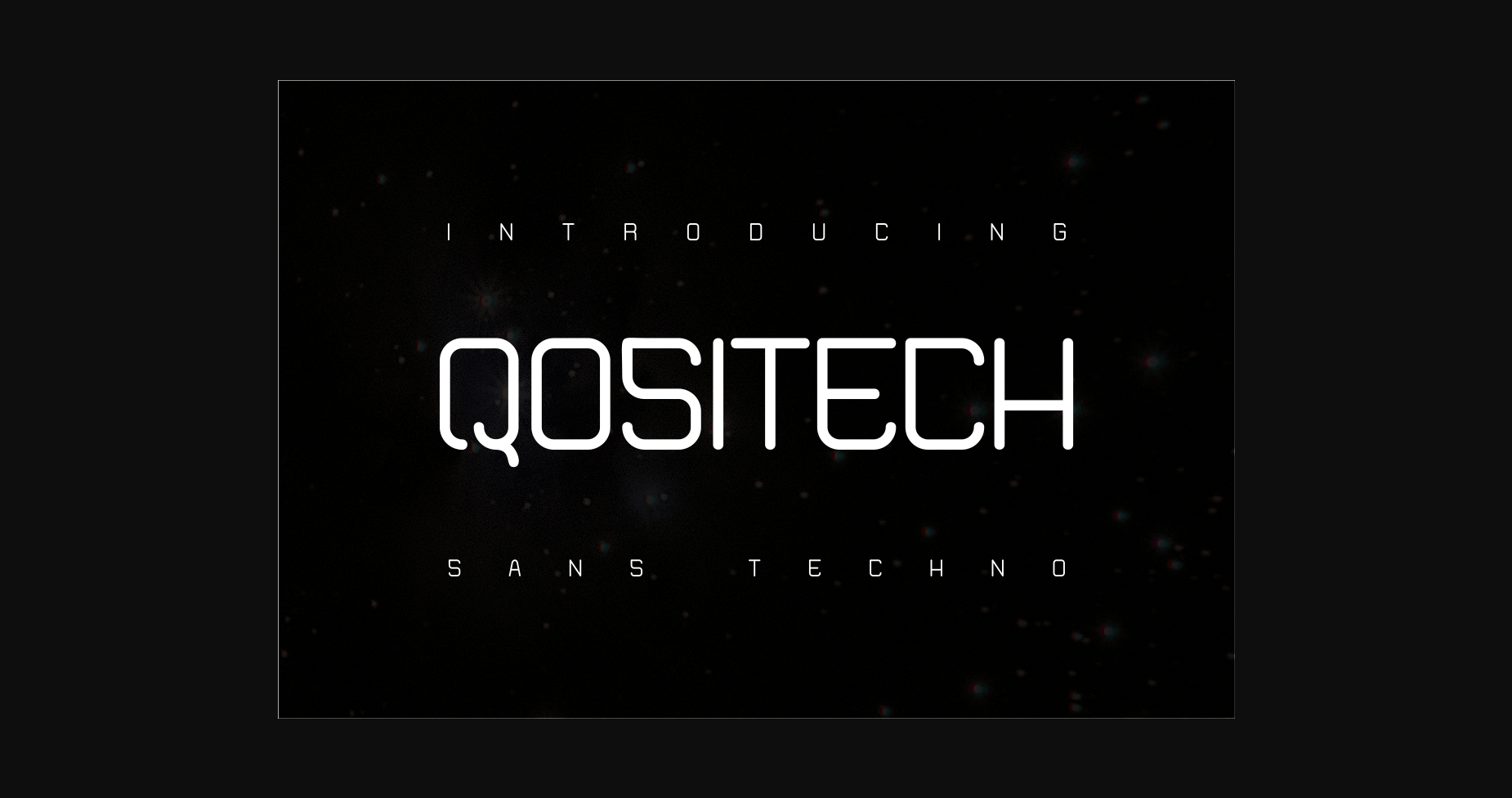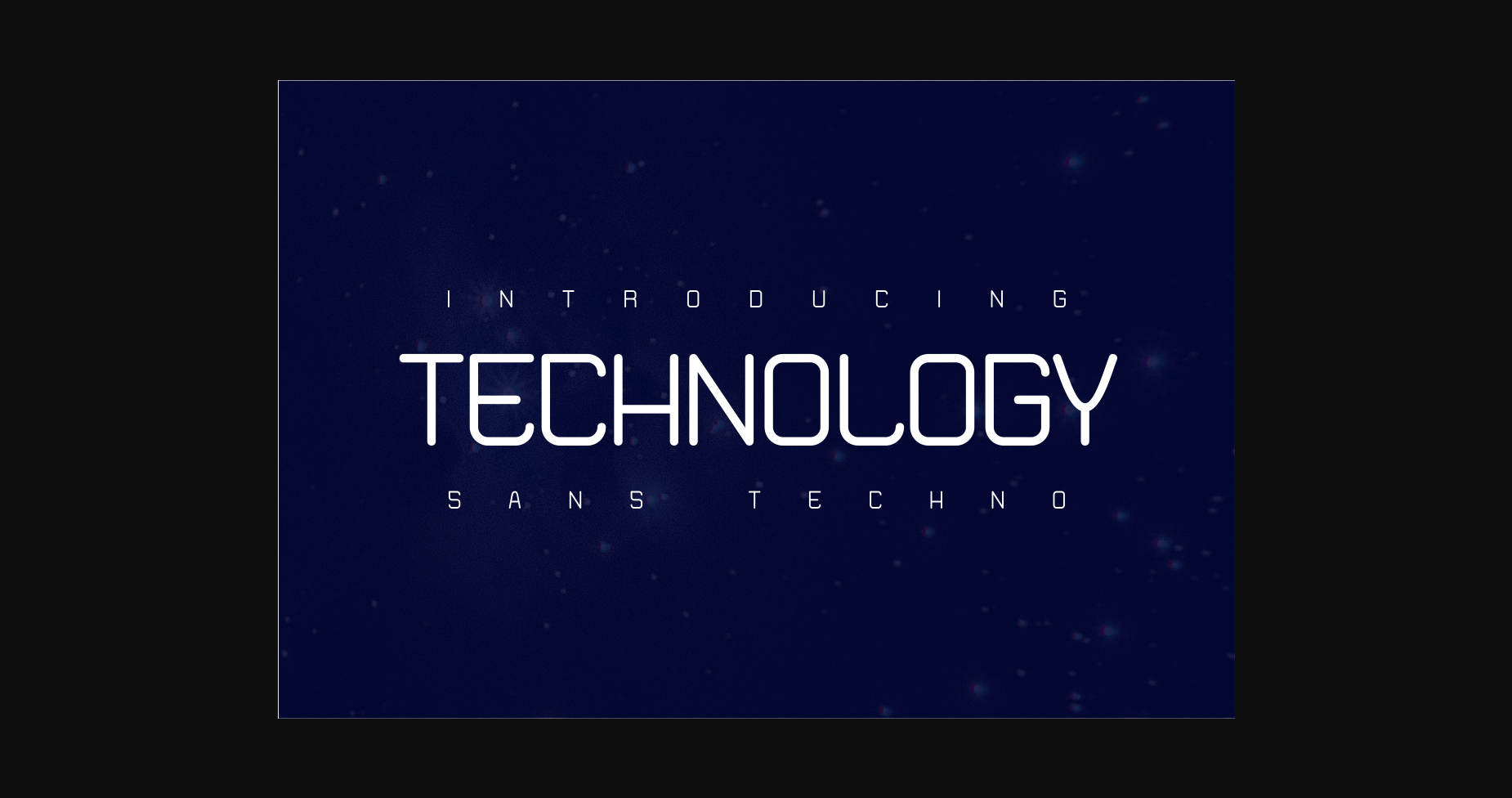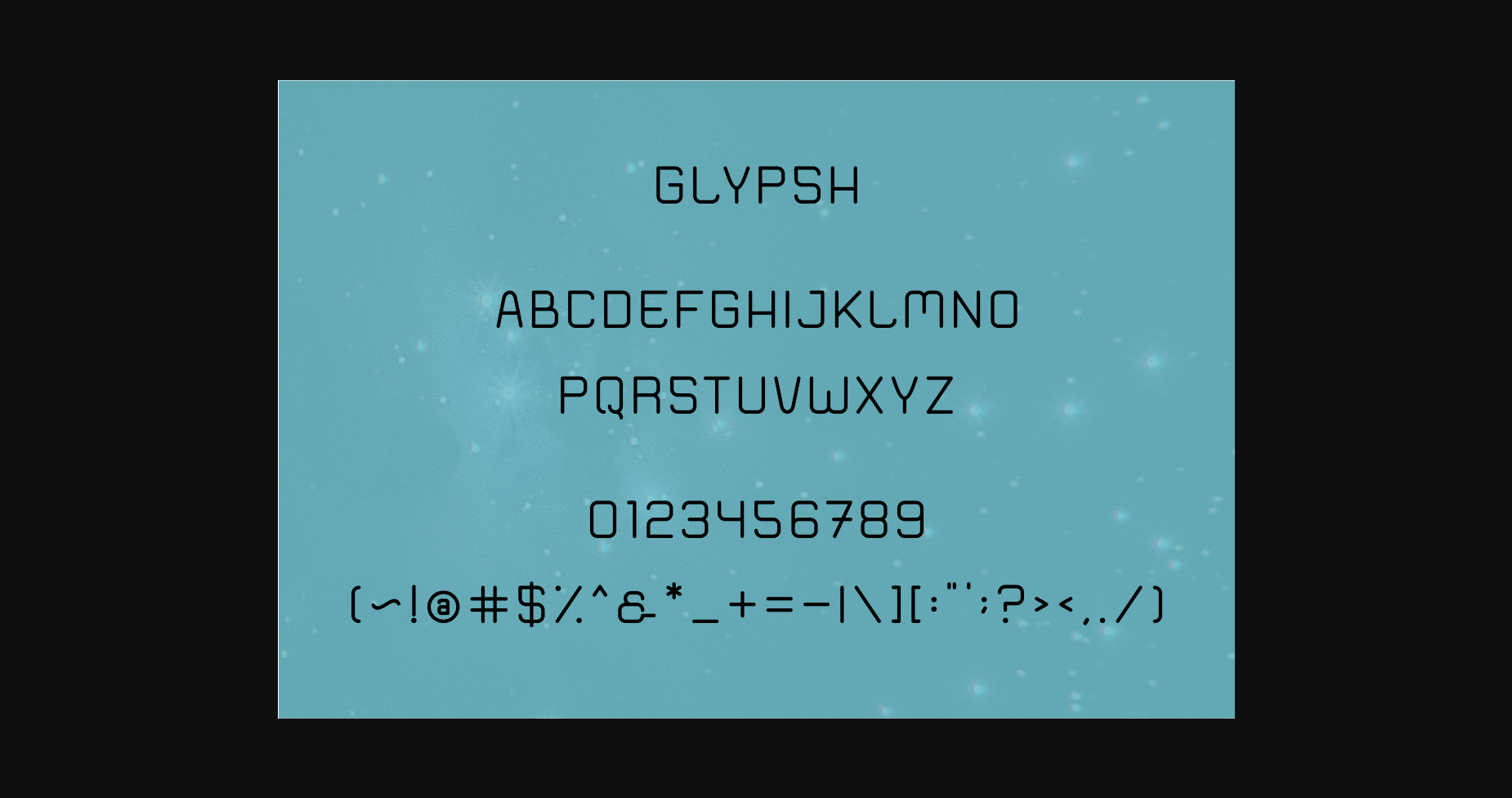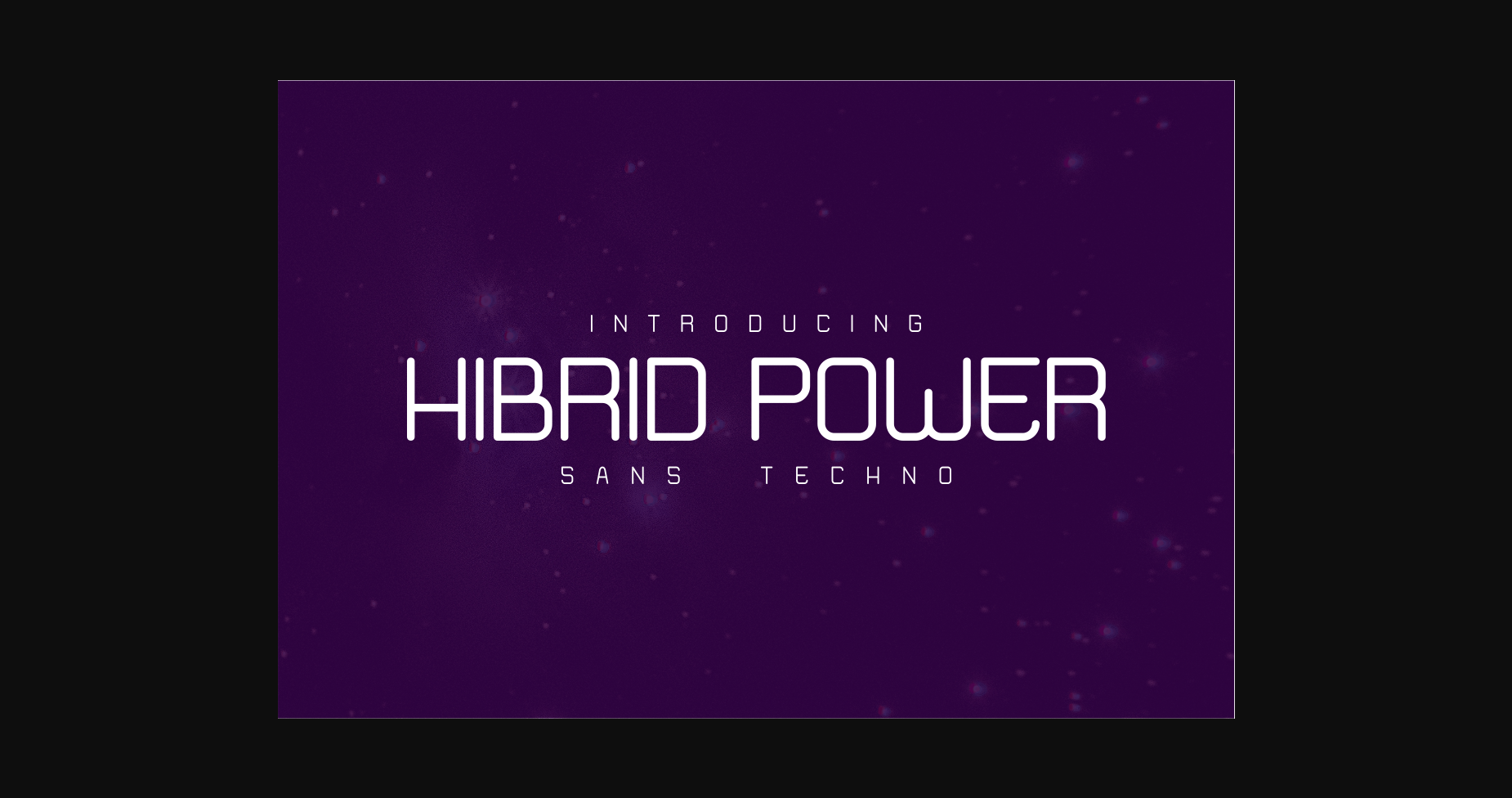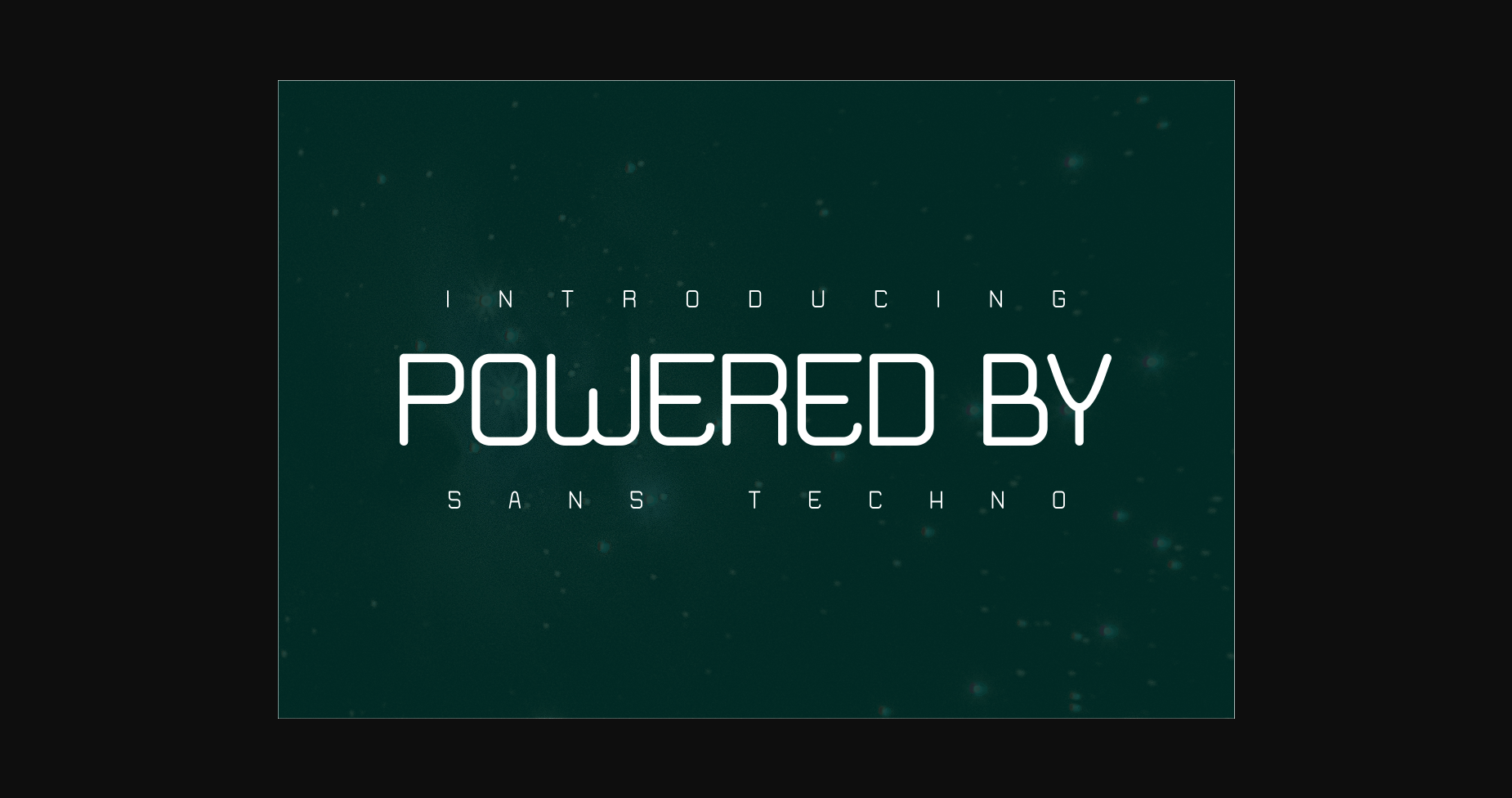
About Qositech Font
Qositech is a sans serif font with techno vibes, made with thin lines.
This font is perfect for things related to technology, starting from electronics, the automotive world, robotics, new discoveries, or things related to the solar system.